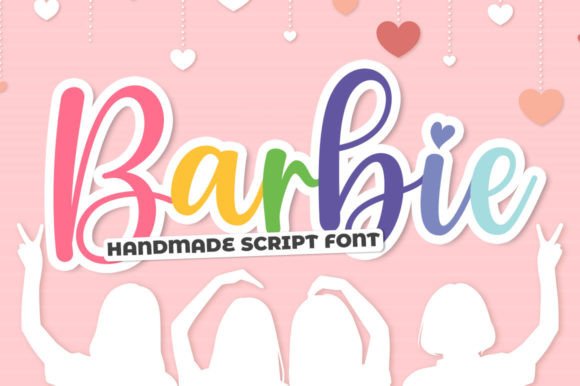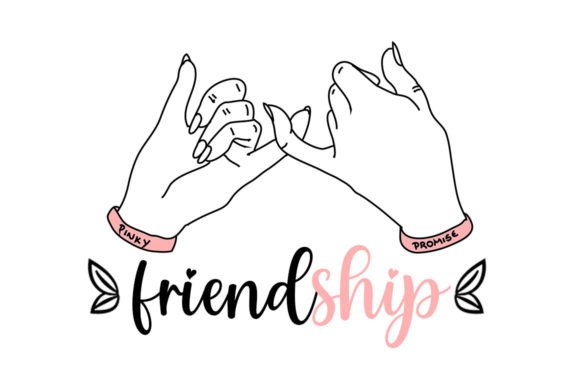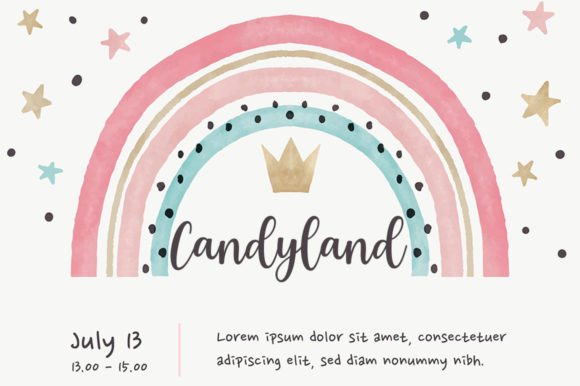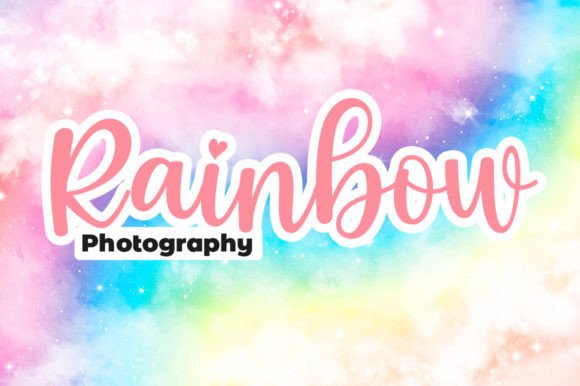
Barbie Font: A Cute Handwritten Script for Branding & Cricut Crafts
About the Barbie Font
Get ready to be inspired by Barbie Font, a fresh and dynamic typeface for modern creators. Barbie is a modern calligraphy font. It is suitably used for various projects such as logos, product packaging, wedding invitations, branding, headlines, signage, labels, signatures, book covers, posters, quotes, and more.